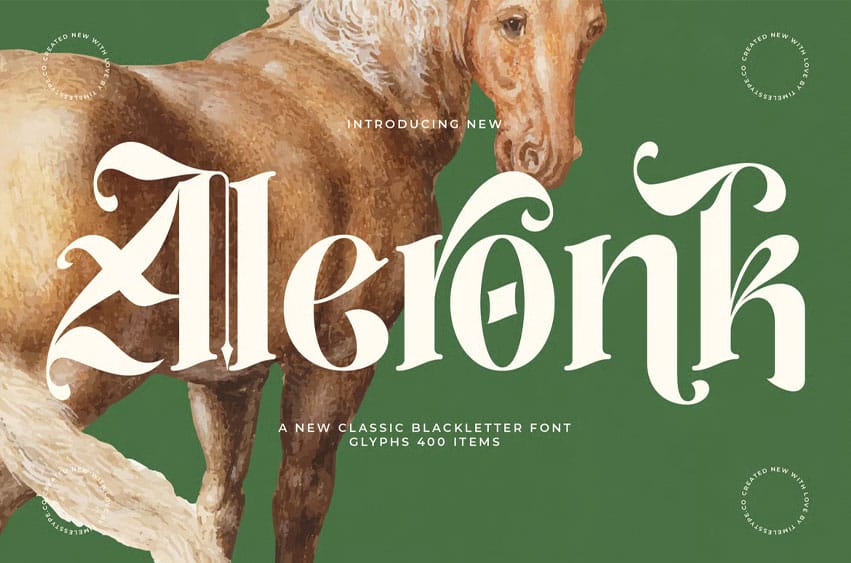
Aleronk Font
Aleronk Font is a modern classic blackletter display font designed with elegant flourishes, strong gothic structure, and refined contemporary detailing. Its sharp strokes, ornamental curves, and balanced proportions create a bold yet sophisticated identity—perfect for branding, packaging, editorial titles, tattoo-inspired graphics, merchandise, posters, and any project that needs a luxurious gothic aesthetic.
Featuring 400 glyphs with rich ligatures and alternates, Aleronk offers designers a versatile blackletter typeface that blends tradition with modern artistry for a striking, memorable visual presence.
• Ligature
• Uppercase and lowercase
• Numbering and Punctuation